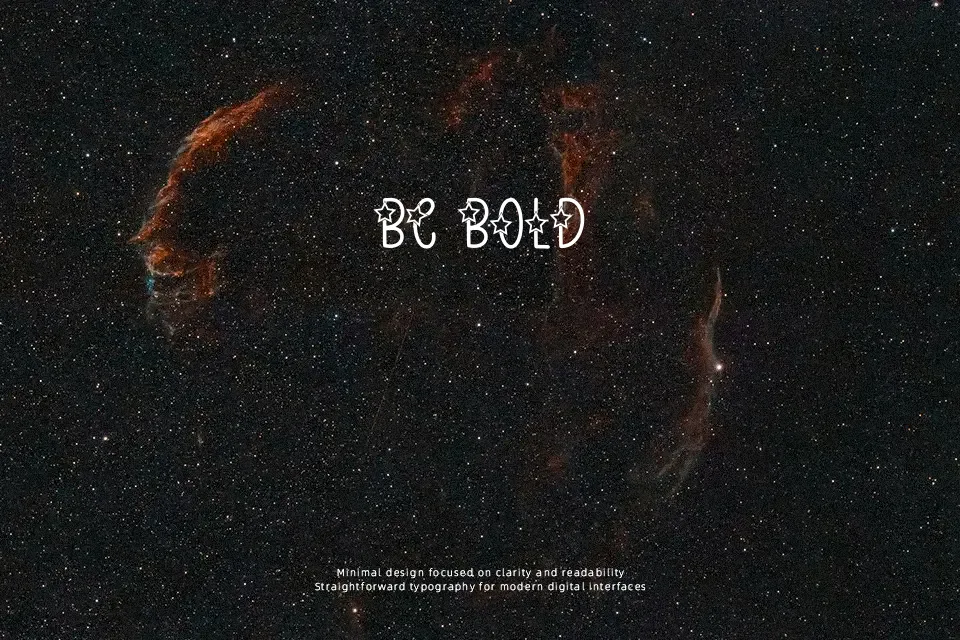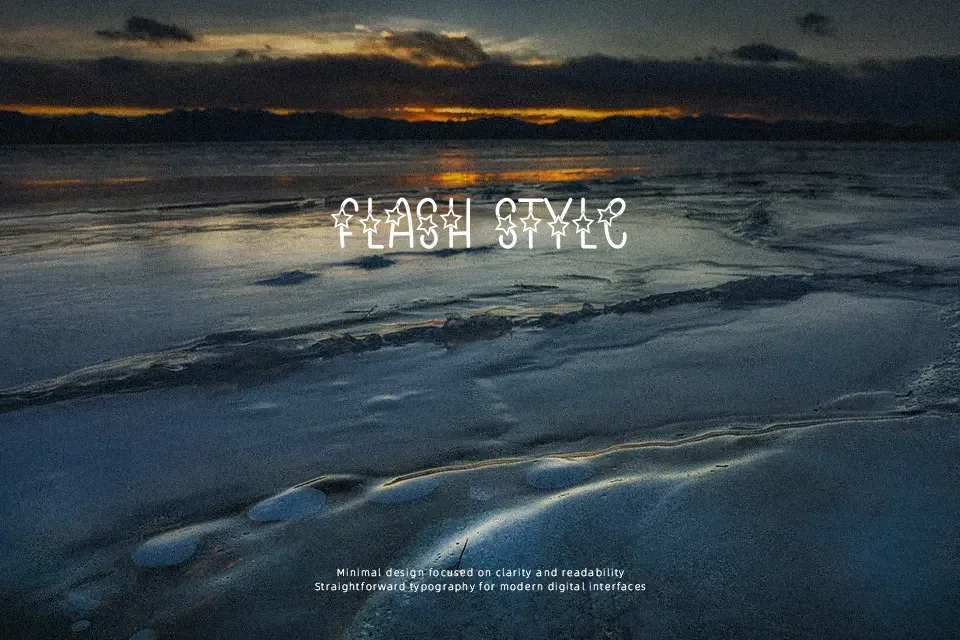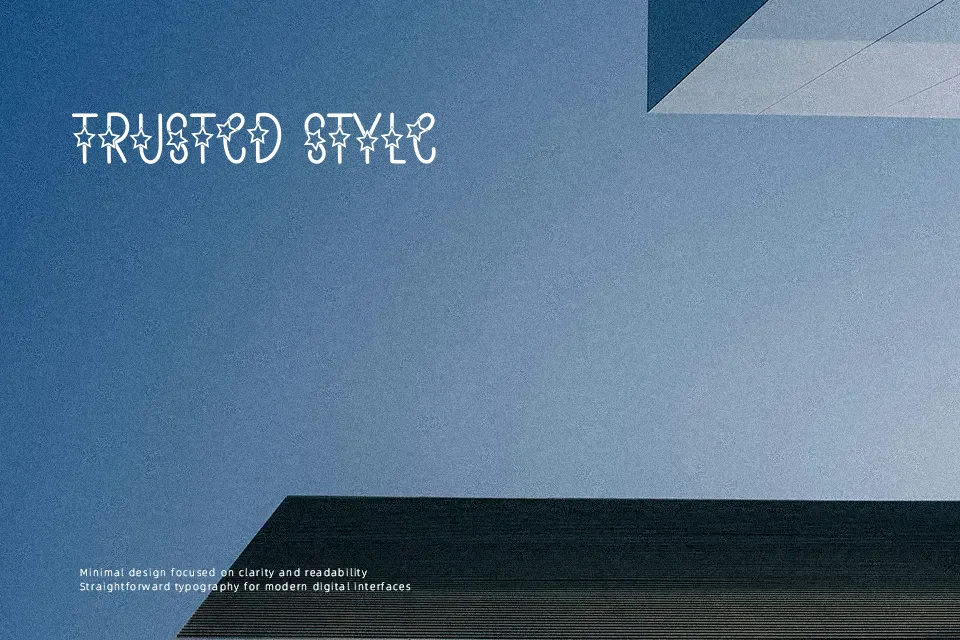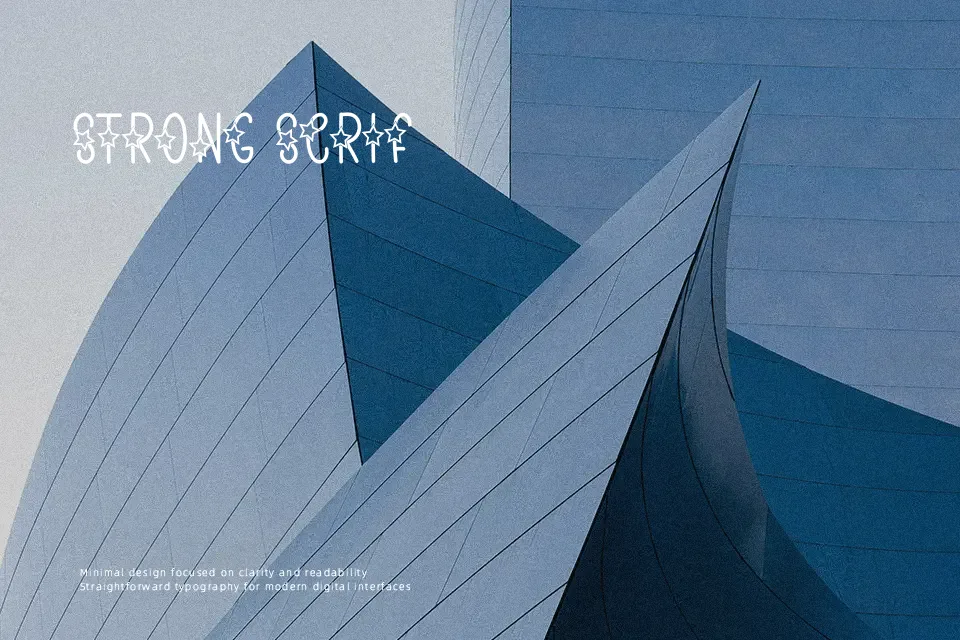
Star Valentine Font
Star Valentine Font combines lively handwritten letterforms with decorative star accents and relaxed stroke variations. The typeface features moderate stroke contrast, rounded terminals, and generous character spacing that preserves legibility across short phrases and creative display headers. Its gentle baseline bounce and asymmetrical counters give the letterforms an approachable, informal rhythm suited for boutique packaging, novelty stationery, and festive digital graphics. However, the ornate accents and irregular proportions reduce reading comfort in continuous multi-line paragraphs, and fine stroke nuances tend to blur at caption scales. When deployed in large headline compositions, the design delivers an engaging, personalized impression without overwhelming neighboring artwork.
Best For: greeting card headlines, wedding stationery titles, social media graphics, party invitation banners
Not Ideal For: extended editorial paragraphs, dense mobile interface text, formal business contracts, spreadsheet data
Perfect for headline, invitation, and packaging, with a creative and decorative style.